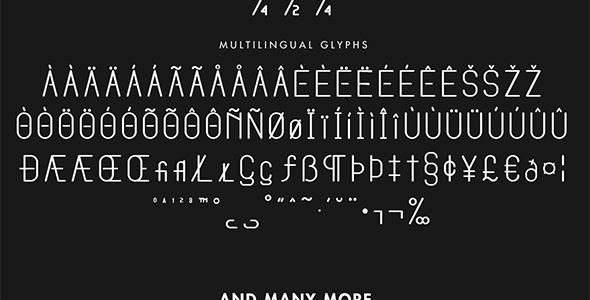
Venditum Typeface
Venditum Typeface is a familia font inspired by modern monoline typeface. Trying to combining modern, future, monoline, and “tumblr”-ish into one style. Very suitable for flyer, posters, shirt, letterhead, or any design requirements that you want to be awesome.
Venditum Features : Uppercase, Lowercase, Numerals & Punctuations, Accents (Multilingual Characters)
OpenType Features : Fraction
There are 6 styles : Regular, Italic, Bold, Bold Italic, Outline, Outline Italic, and also OpenType feature: Fraction that makes you easier to design many great things. Don’t forget to access OpenType feature you need a programs that support OpenType features such as Adobe Illustrator CS or Adobe InDesign.
Hope this familia can updates with more Alternate & Stylistic Set soon